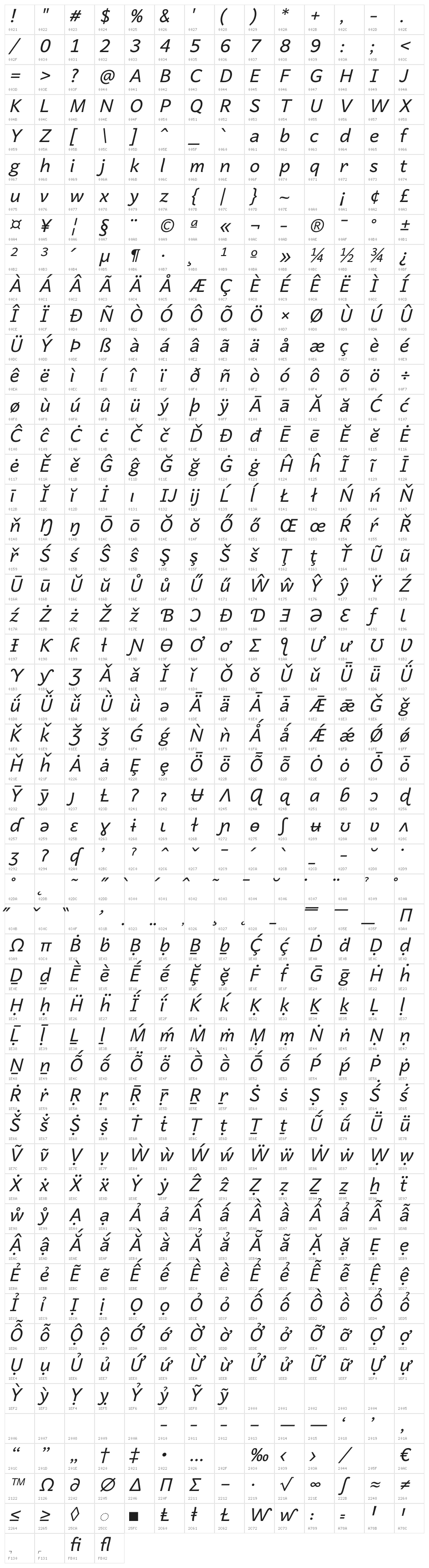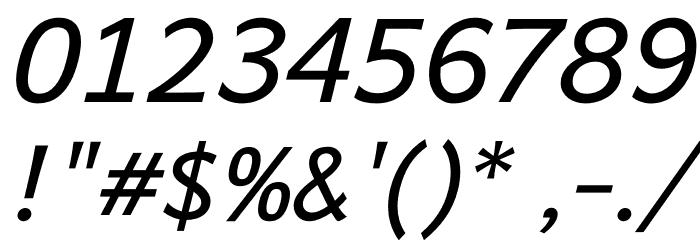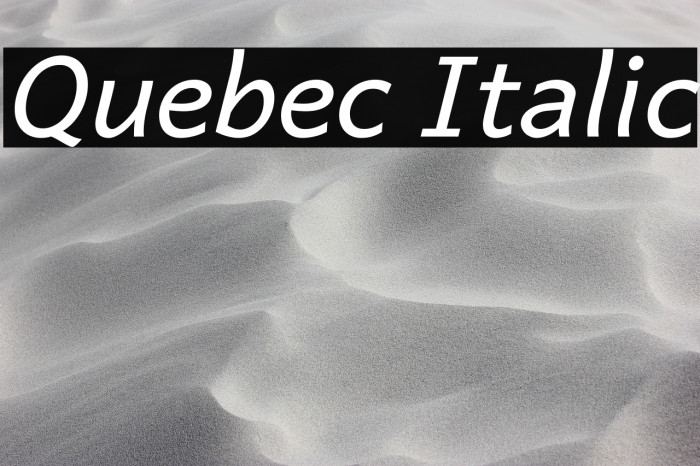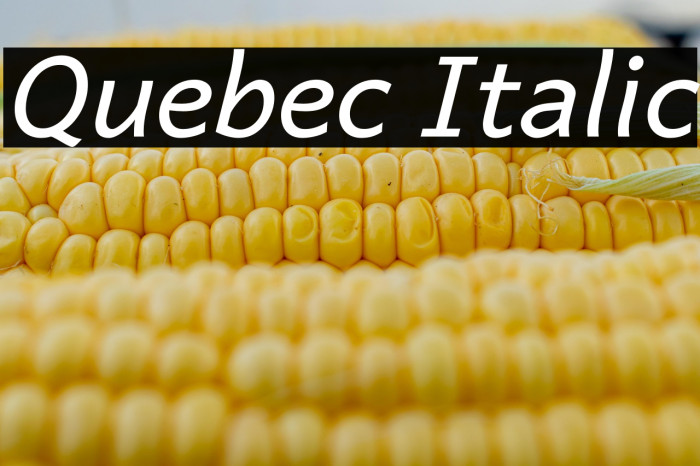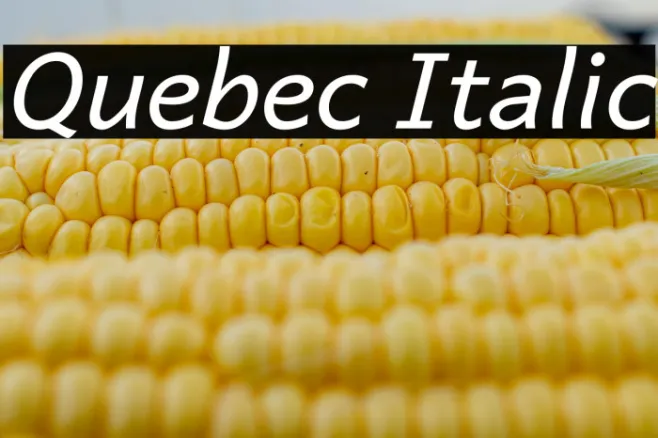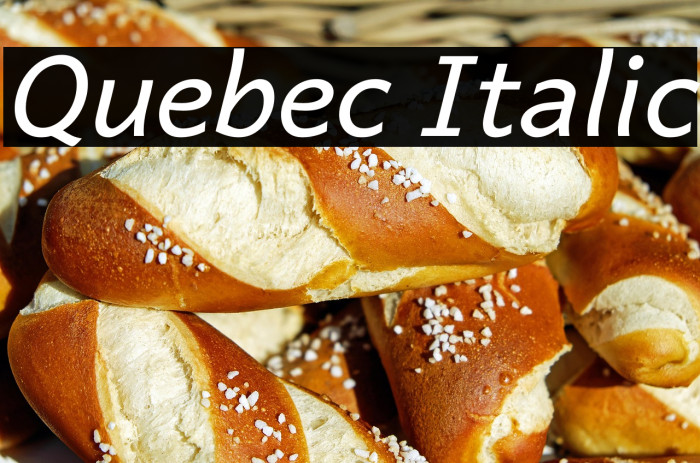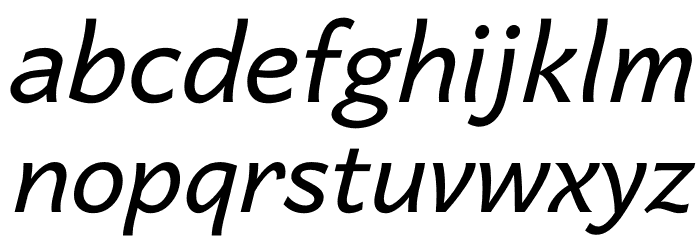
Quebec Italic Font
Quebec Italic Description
This font features a sleek and modern italic style with a slight slant, giving it a dynamic and forward-moving appearance. The characters are well-proportioned, with a consistent stroke width that maintains readability while adding a touch of elegance. The uppercase letters are bold and commanding, while the lowercase letters have a smooth, flowing quality. The numerals are clear and distinct, making them suitable for both text and numerical data. Special characters are well-integrated, maintaining the overall aesthetic of the font. This font is versatile, suitable for a variety of design applications.
| Proposed Projects | Ideal for branding, editorial design, advertising, and digital media projects. |